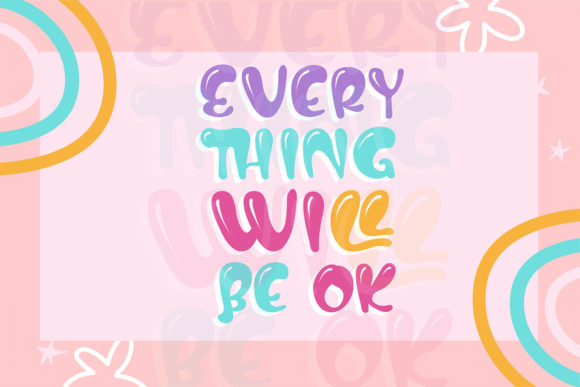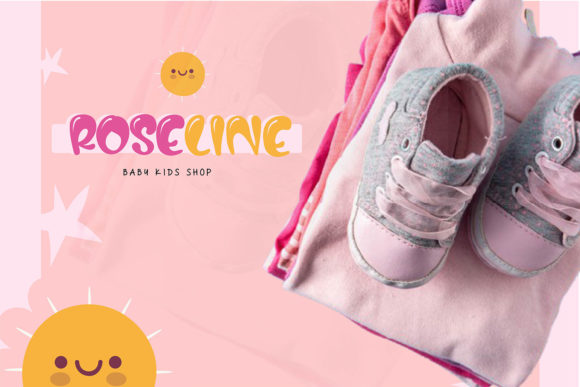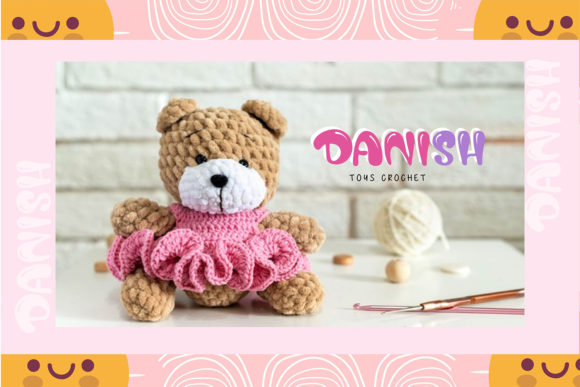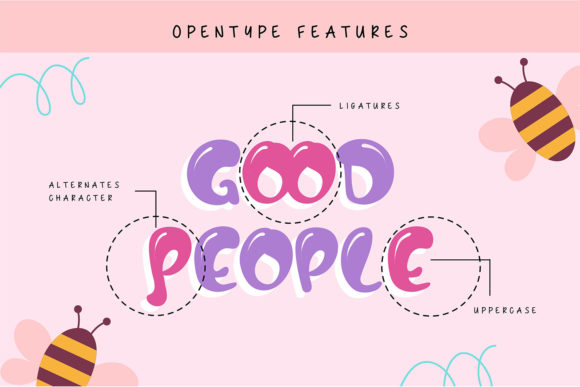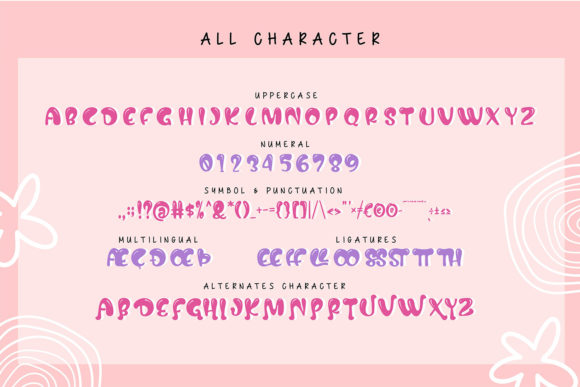
Introducing Caldera Font: The Cute and Bubbly Display Font for Children-Themed Designs
Are you a designer or crafter looking for a font that can add a touch of fun and playfulness to your children-themed designs? Look no further than Caldera Font! This adorable display font is perfect for creating eye-catching and engaging designs that kids will love. In this article, we’ll take a closer look at Caldera Font, its features, and how you can use it to take your designs to the next level.
What is Caldera Font?
Caldera Font is a cute and bubbly display font that’s designed to bring a smile to kids’ faces. Its playful and whimsical design makes it perfect for children-themed designs, such as kids’ party invitations, children’s book illustrations, and educational materials. The font is PUA encoded, which means you can access all of the glyphs and swashes with ease, giving you endless creative possibilities.
Key Features of Caldera Font
- PUA Encoded: Caldera Font is PUA encoded, which means you can access all of the glyphs and swashes with ease, making it easy to create unique and creative designs.
- Cute and Bubbly Design: The font has a playful and whimsical design that’s perfect for children-themed designs.
- Display Font: Caldera Font is a display font, making it perfect for headlines, titles, and other attention-grabbing elements.
How to Use Caldera Font in Your Designs
Caldera Font is perfect for a variety of children-themed designs, including:
- Kids’ Party Invitations: Create fun and playful invitations that kids will love.
- Children’s Book Illustrations: Add a touch of whimsy to your children’s book illustrations with Caldera Font.
- Educational Materials: Use Caldera Font to create engaging and interactive educational materials, such as worksheets and activity sheets.
- Signs and Banners: Create eye-catching signs and banners that kids will love.
Tips for Using Caldera Font
- Combine with Bright Colors: Caldera Font looks best when combined with bright and bold colors. Try pairing it with colors like pink, blue, and yellow.
- Experiment with Glyphs and Swashes: Take advantage of the PUA encoding and experiment with different glyphs and swashes to add a unique touch to your designs.
- Use for Headlines and Titles: Caldera Font is perfect for headlines and titles. Use it to grab attention and add a touch of fun to your designs.
Caldera Font is a cute and bubbly display font that’s perfect for children-themed designs. Its playful and whimsical design, combined with its PUA encoding, makes it a versatile and fun font to work with. Whether you’re a designer or crafter, Caldera Font is a great addition to your font library. So why not give it a try and see how it can add a touch of fun and playfulness to your designs?
Overall, Caldera Font is a great choice for anyone looking to add a touch of fun and playfulness to their children-themed designs. Its unique design and versatility make it a valuable addition to any font library.